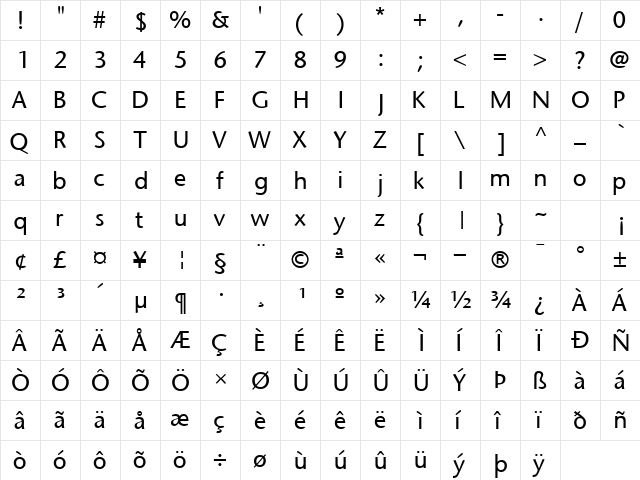
MesouranSansSSK Regular
Design Context for MesouranSansSSK Typeface
MesouranSansSSK offers clean, dependable letterforms without strong stylistic allegiance, making it a practical choice for designers who need flexibility.